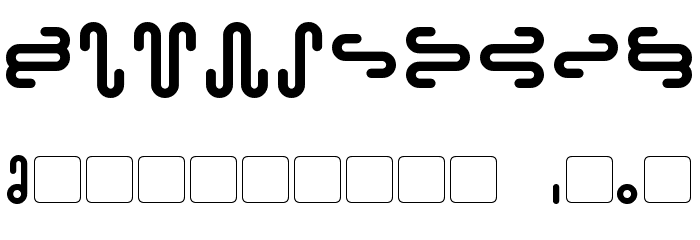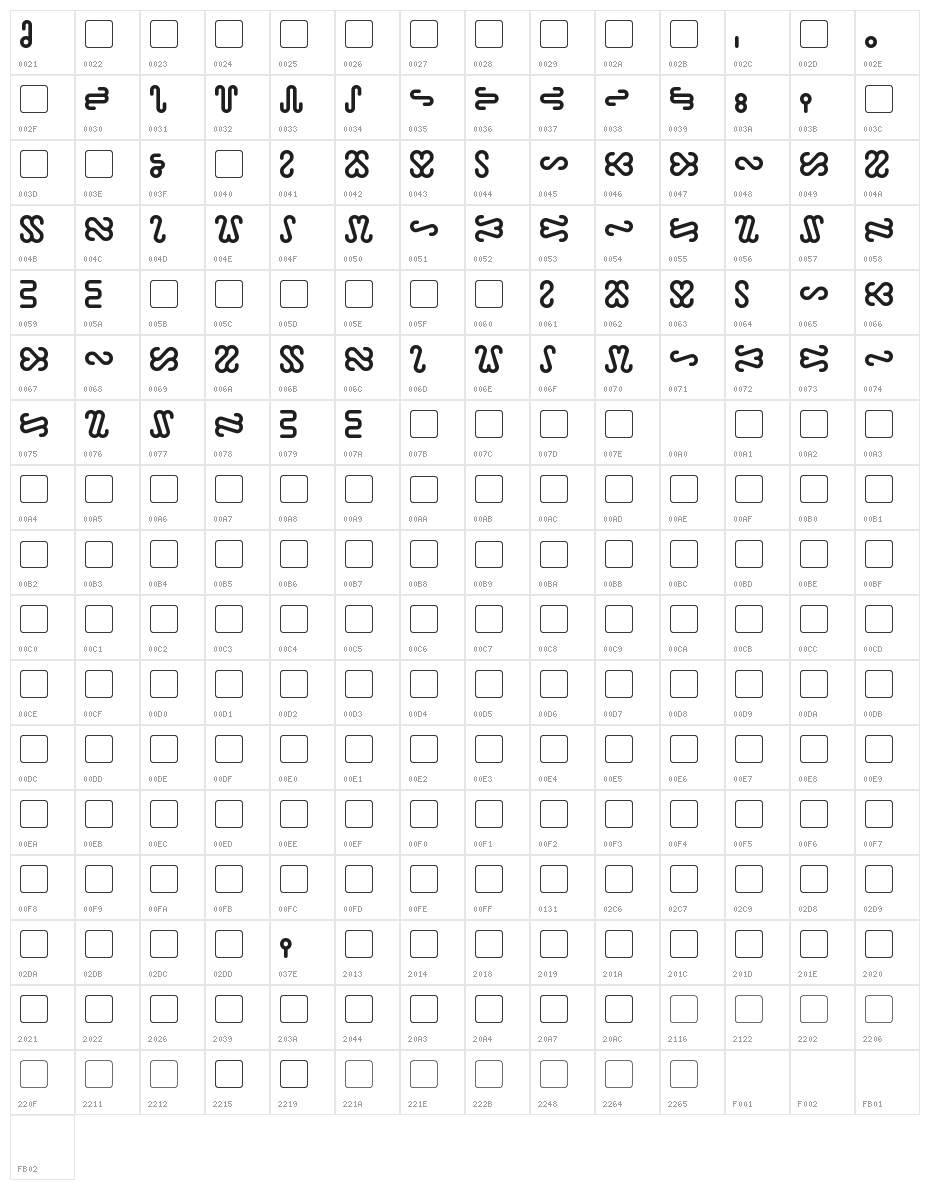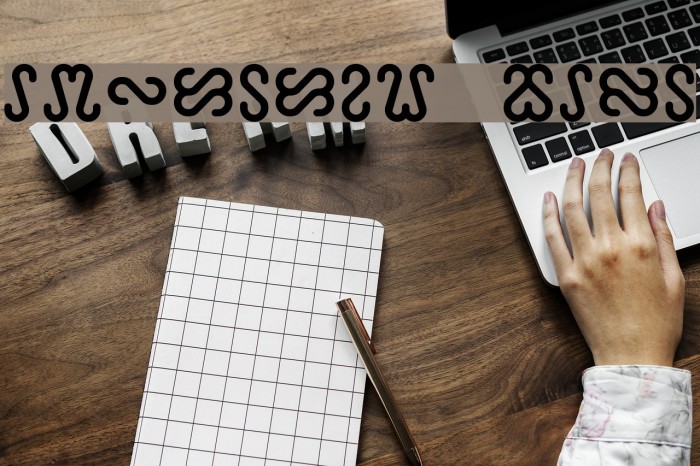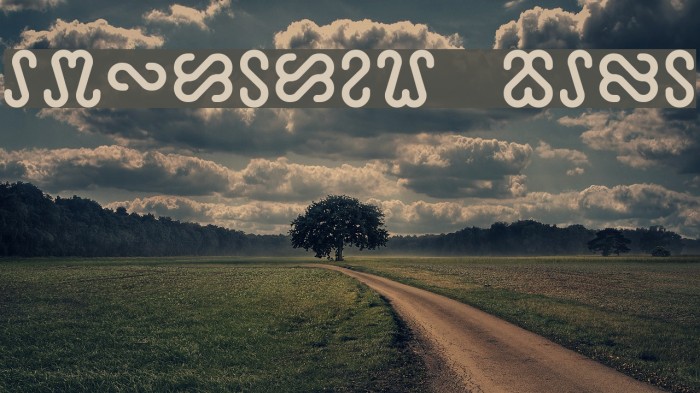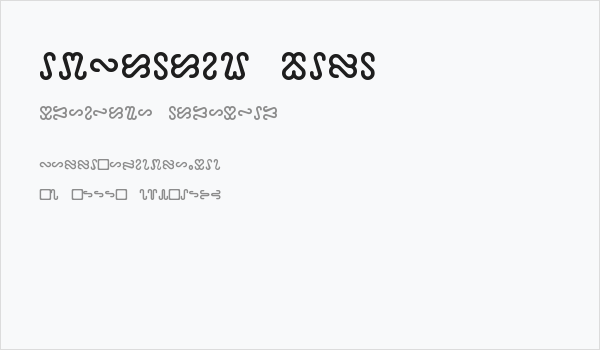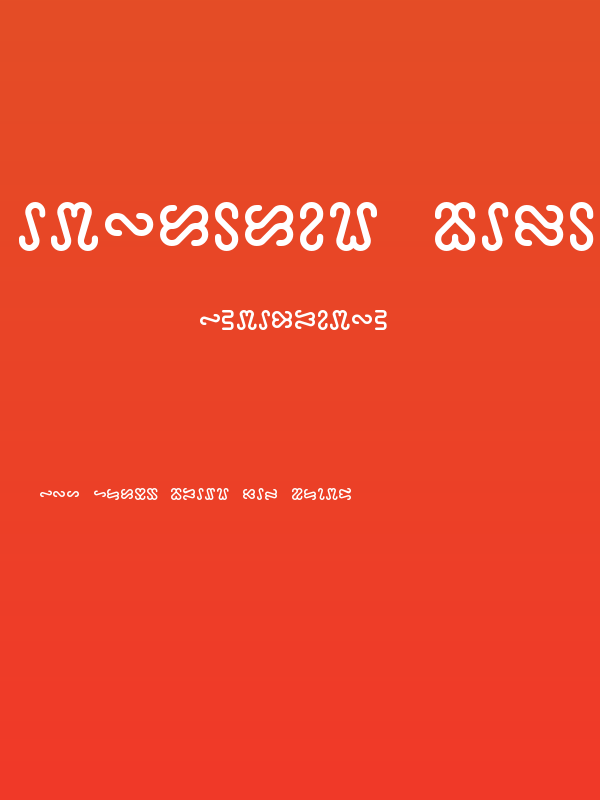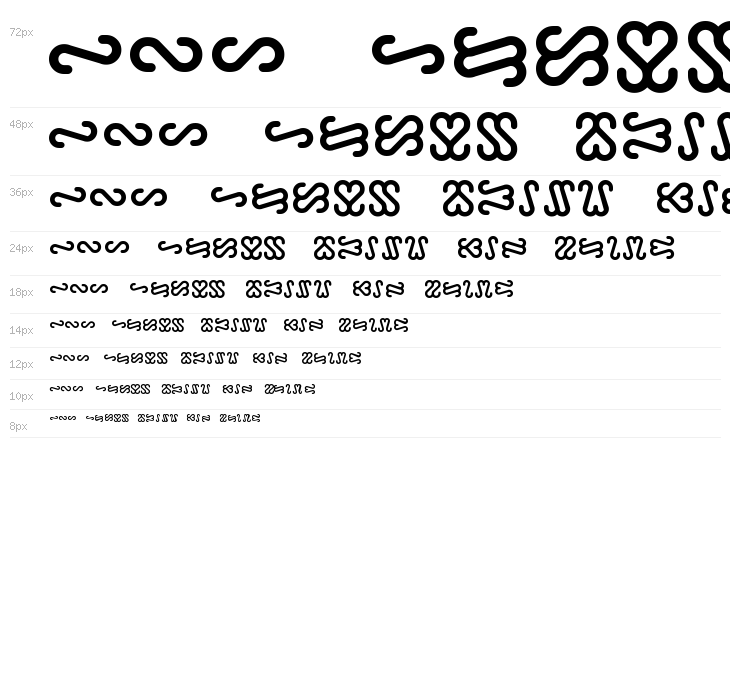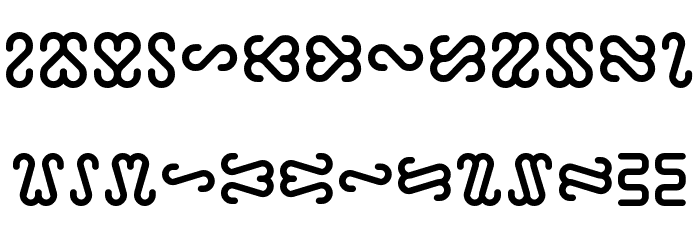
Ophidian Bold Font
Ophidian Bold Description
This font features a highly decorative and abstract design, characterized by its bold, continuous loops and curves that create a sense of fluidity and movement. The characters are interconnected, forming a seamless pattern that resembles intricate knots or serpentine shapes. The bold strokes and unique forms make it stand out as a display typeface, suitable for artistic and creative projects. Its distinct style is not suited for body text but excels in capturing attention in headlines or logos. The font's playful and artistic nature lends itself well to projects that require a touch of whimsy and creativity.
| Proposed Projects | Ideal for artistic posters, creative branding, unique logos, and decorative headlines. |